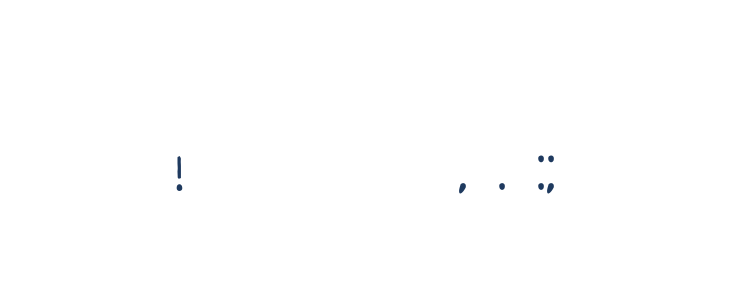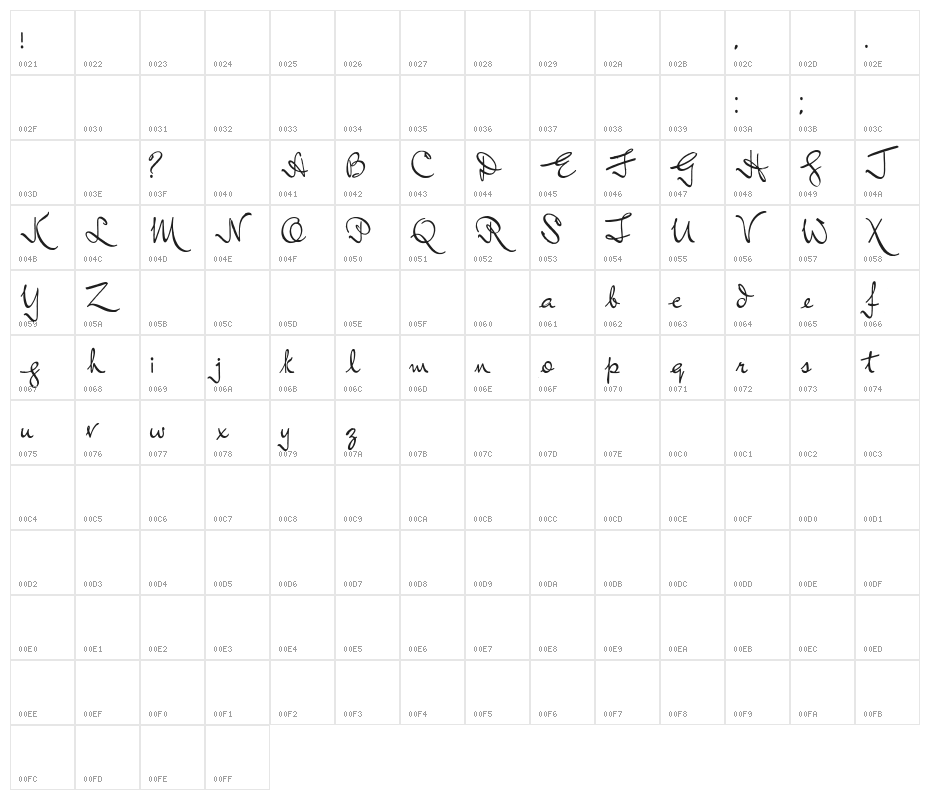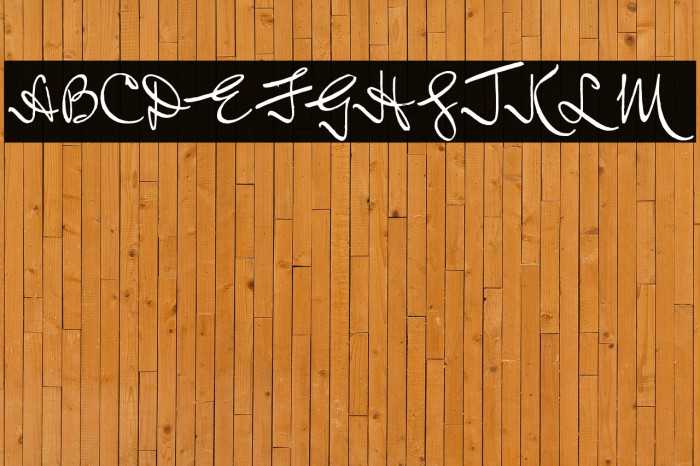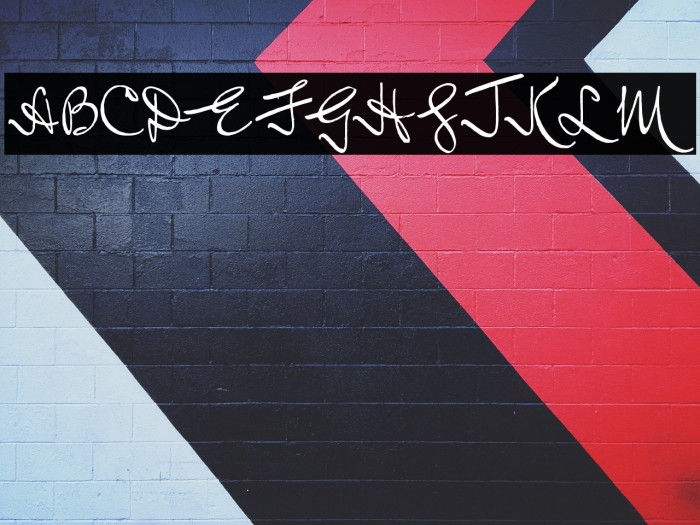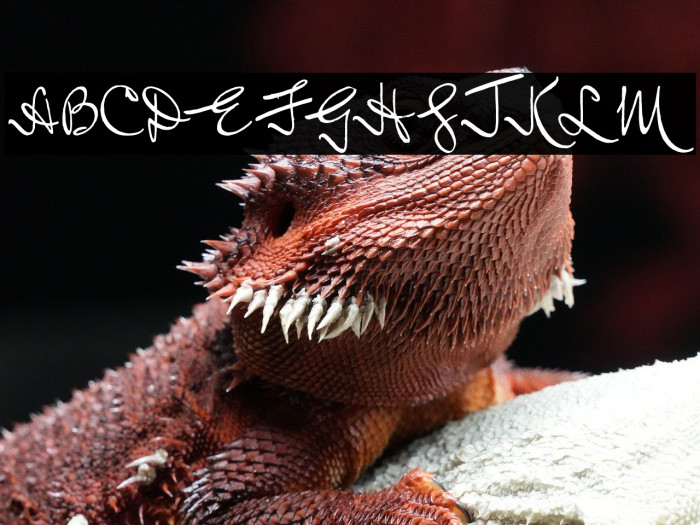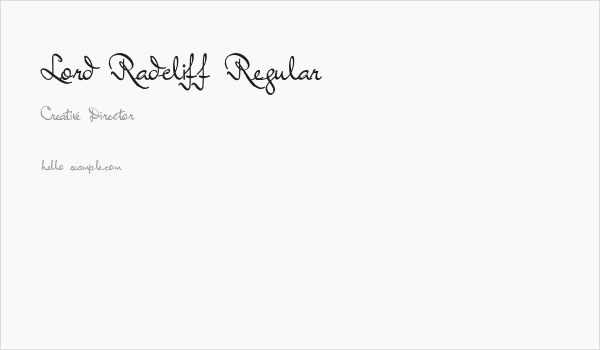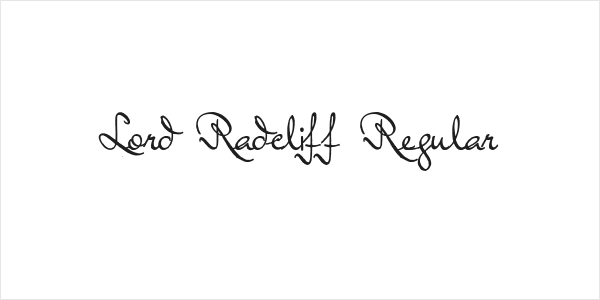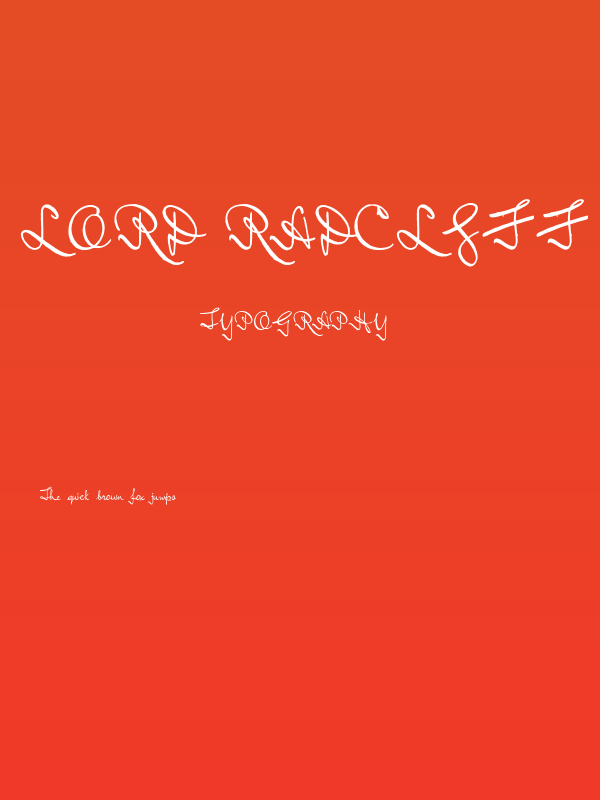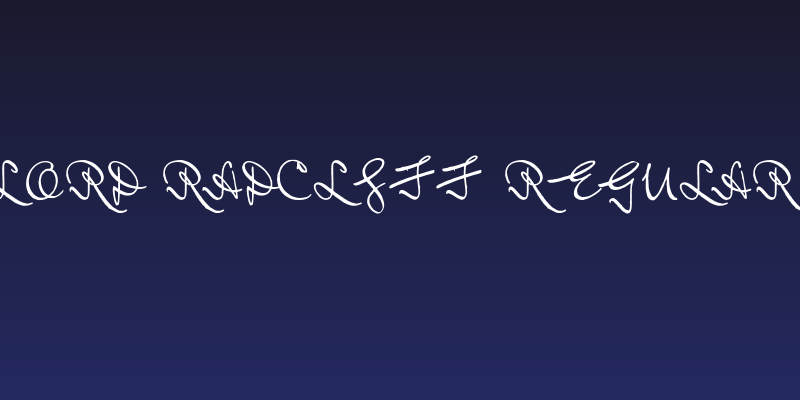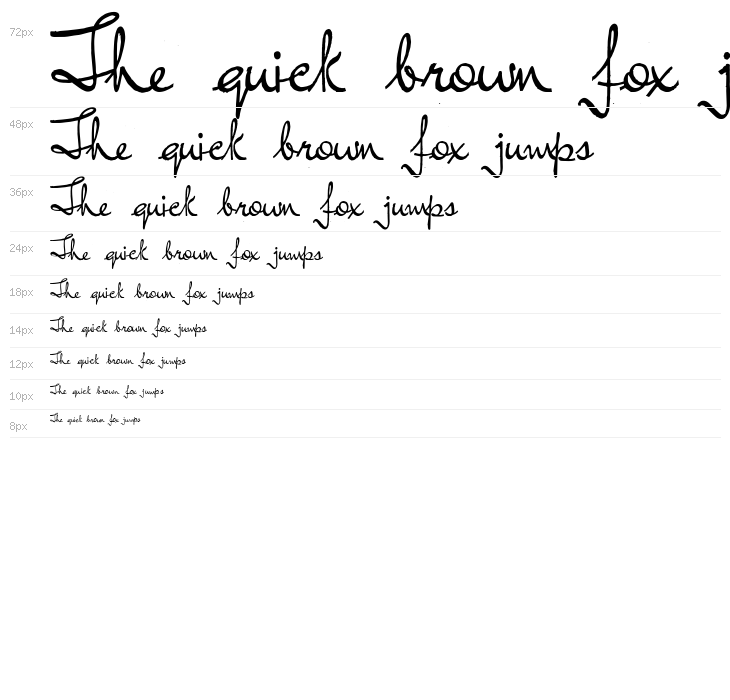
Lord Radcliff Regular Font
Lord Radcliff Regular Description
This font exhibits a unique and artistic script style, characterized by its flowing, cursive letterforms that convey a sense of elegance and sophistication. The uppercase letters are distinct with elaborate loops and curves, while the lowercase letters maintain a consistent fluidity, enhancing readability despite their decorative nature. The font's overall appearance is reminiscent of calligraphic handwriting, making it suitable for projects that require a personal touch. The characters are well-balanced, with a moderate contrast in stroke thickness, adding to its legibility. The spacing between characters is relatively tight, which contributes to its cohesive look.